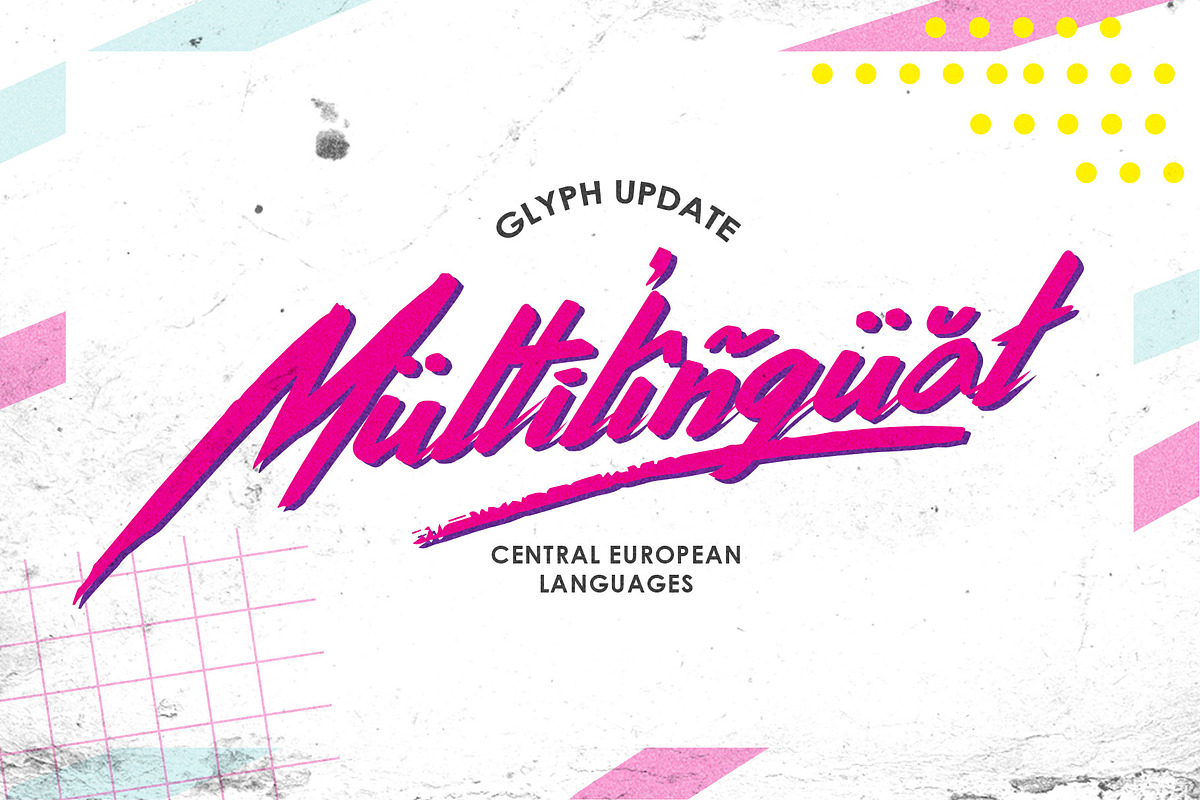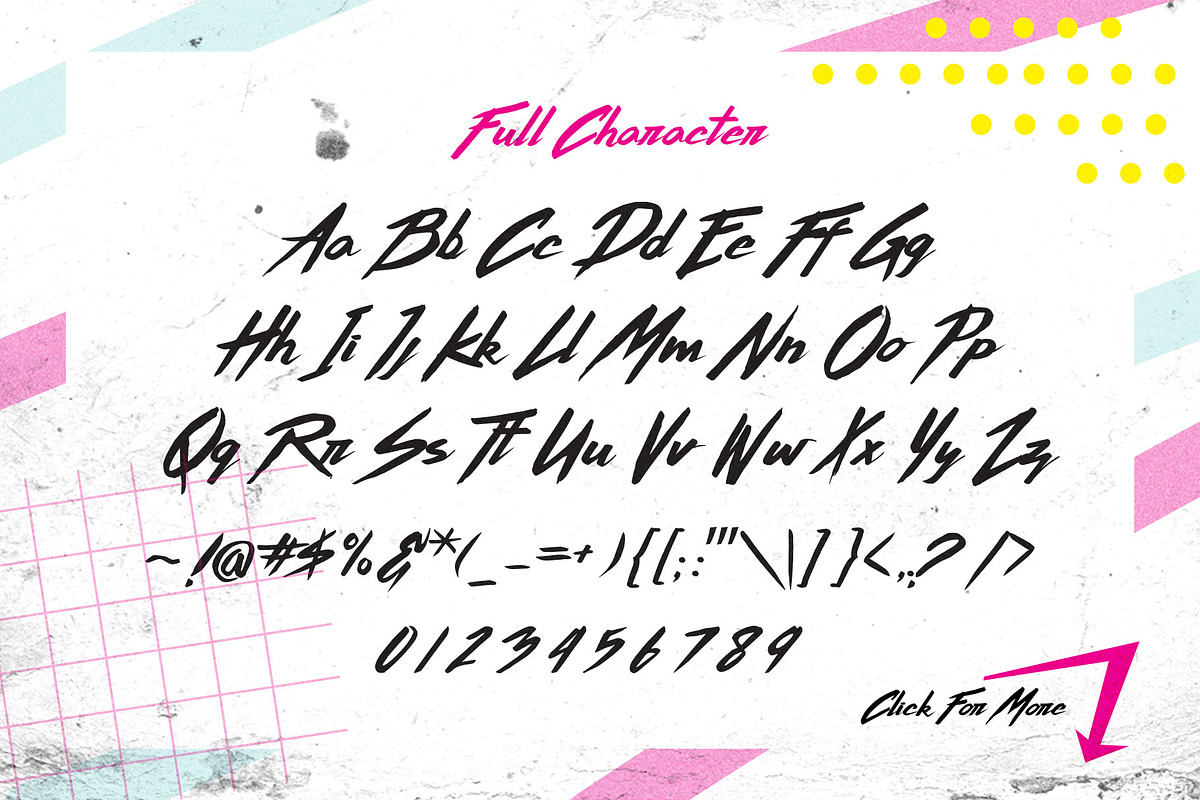
Thunderstorm is a hand-made brush typeface inspired by 80s-90s music, retro, disco, grunge, and pop culture. uses for posters, logos, clothing, books, invitations, logo, etc. To access the alternate glyphs, you need a program that supports OpenType features such as Adobe Illustrator CS and Adobe Indesign.